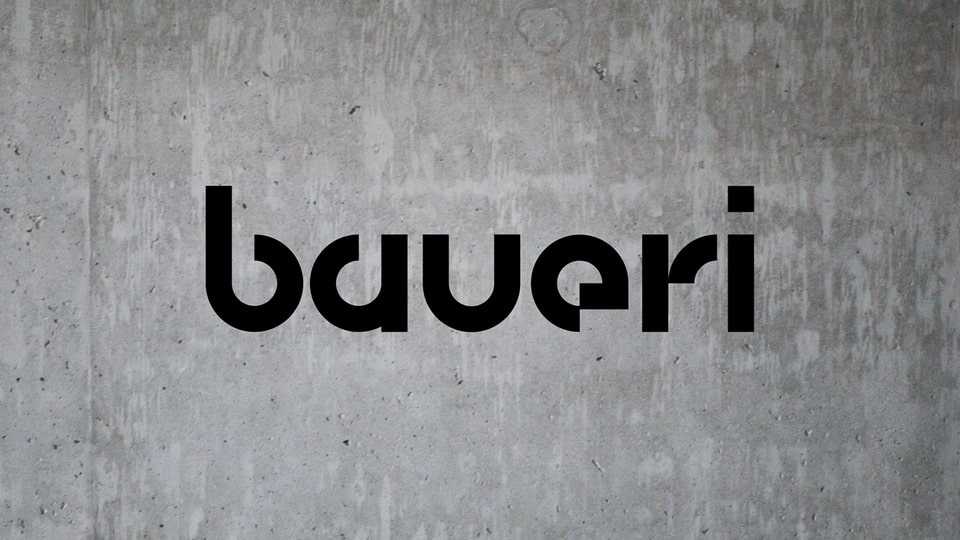
Download Baueri font, a geometric Georgian sans serif typeface constructed with a few modules. Ascenders’ and descenders’ heights of the Baueri are equal.